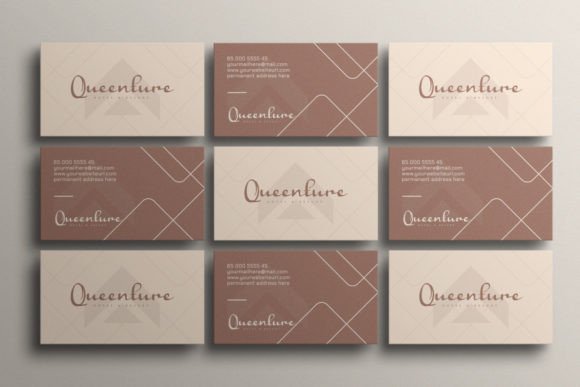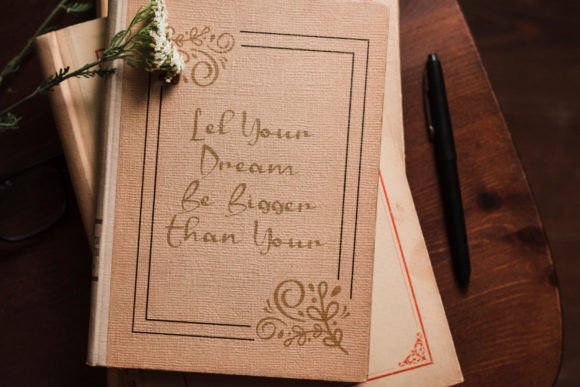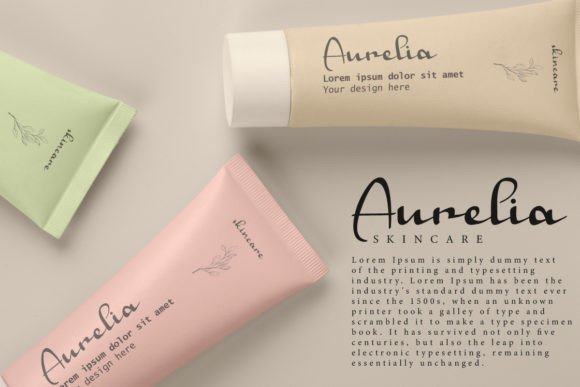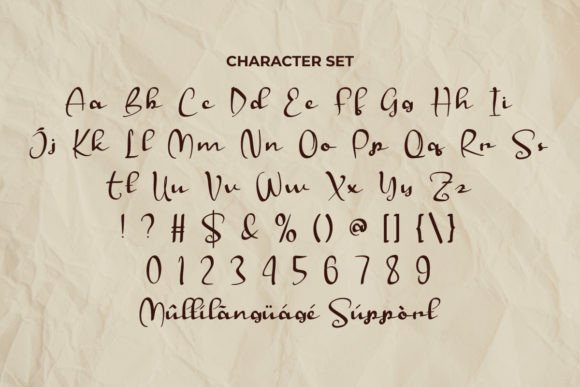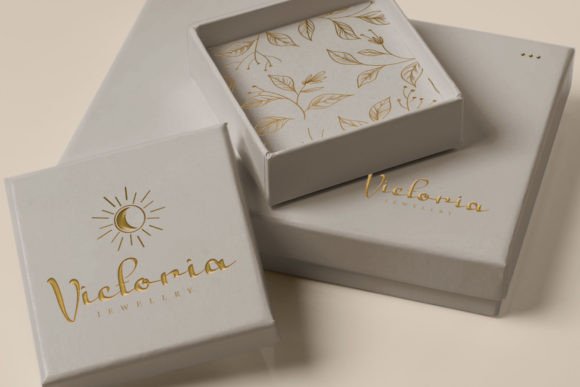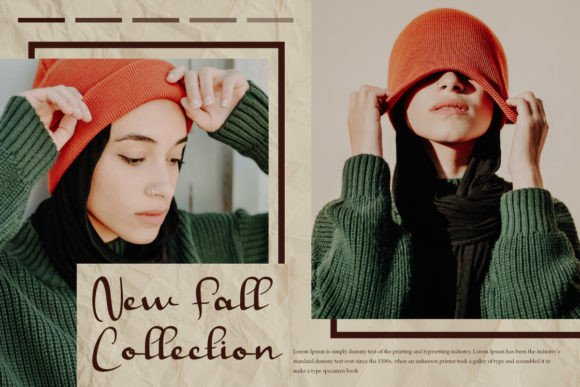
Away Stress Font: Elevate Your Designs with a Classic Handwriting Script
In the world of design, fonts play a crucial role in conveying the message and aesthetic of a project. Among the myriad of fonts available, the Away Stress Font stands out as a classic handwriting script font that brings a unique style to the table. Its distinctive shapes and lines not only make it easy to read but also infuse any design with a beautiful impression. Whether you’re a designer, crafter, or simply someone who appreciates the art of typography, the Away Stress Font is a versatile tool that can enhance a wide range of projects.
What Makes Away Stress Font Special?
The Away Stress Font is characterized by its elegant and fluid script style. Each letter is crafted with care, ensuring that the font maintains readability while offering a unique aesthetic that’s hard to find in more conventional fonts. The fluidity of the lines and the classic feel of the handwriting make it an excellent choice for projects that aim to evoke a sense of sophistication, warmth, and personality.
Applications of Away Stress Font
The versatility of the Away Stress Font is one of its most compelling features. It’s suitable for a vast array of design projects, including:
• Business Cards: Make a lasting impression with a business card that stands out, thanks to the unique and elegant style of the Away Stress Font.
• Invitations: Whether it’s a wedding, birthday, or any other celebration, this font adds a touch of class and personalization to your invitations.
• Covers and Posters: Capture the attention of your audience with a bold yet elegant title or heading that sets the tone for your message.
• Product Packaging: Elevate your brand’s packaging with a font that communicates quality and attention to detail.
• Brand Logos: For businesses looking to establish a strong brand identity, the Away Stress Font can be a valuable asset, offering a distinctive and memorable logo.
• Labels: From product labels to event tags, this font can add a professional yet personal touch.
• Web Pages: Enhance the user experience on your website with elegant headings, quotes, or messages that engage and inspire.
• Quotes and Sayings: Give your quotes a visually appealing backdrop that emphasizes their significance and makes them more shareable.
Why Choose Away Stress Font?
Choosing the right font for your project can be daunting, but here are a few reasons why the Away Stress Font should be at the top of your list:
• Readability: Despite its unique style, the font remains highly legible, ensuring that your message is communicated clearly.
• Versatility: Its application spans across various design needs, making it a valuable addition to any designer’s toolkit.
• Aesthetic Appeal: The classic handwriting script style adds a touch of elegance and warmth to any design.
The Away Stress Font is more than just a typeface; it’s a design element that can transform your projects with its classic handwriting script style. Its unique blend of readability, elegance, and versatility makes it an indispensable asset for designers and crafters looking to add a personal touch to their work. Whether you’re aiming to create a memorable brand identity, craft beautiful invitations, or simply add some flair to your website, the Away Stress Font is a choice that can help you achieve your design goals with style.
So, why settle for ordinary when you can make your designs extraordinary with the Away Stress Font? Explore its potential, unleash your creativity, and watch your projects stand out with the elegance and charm that this exceptional font has to offer.